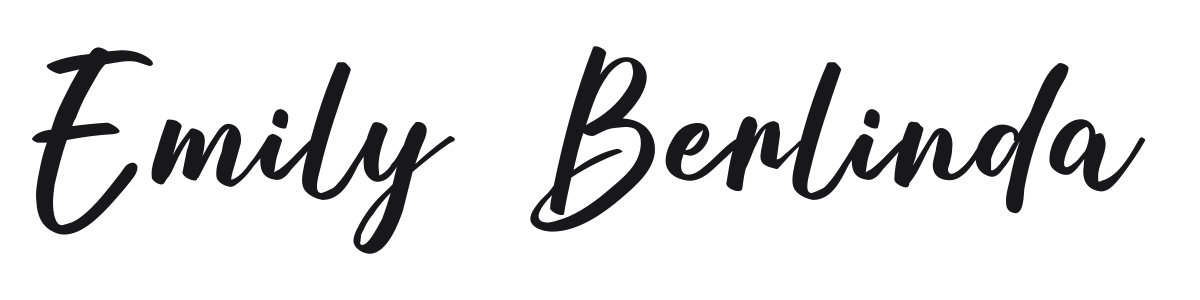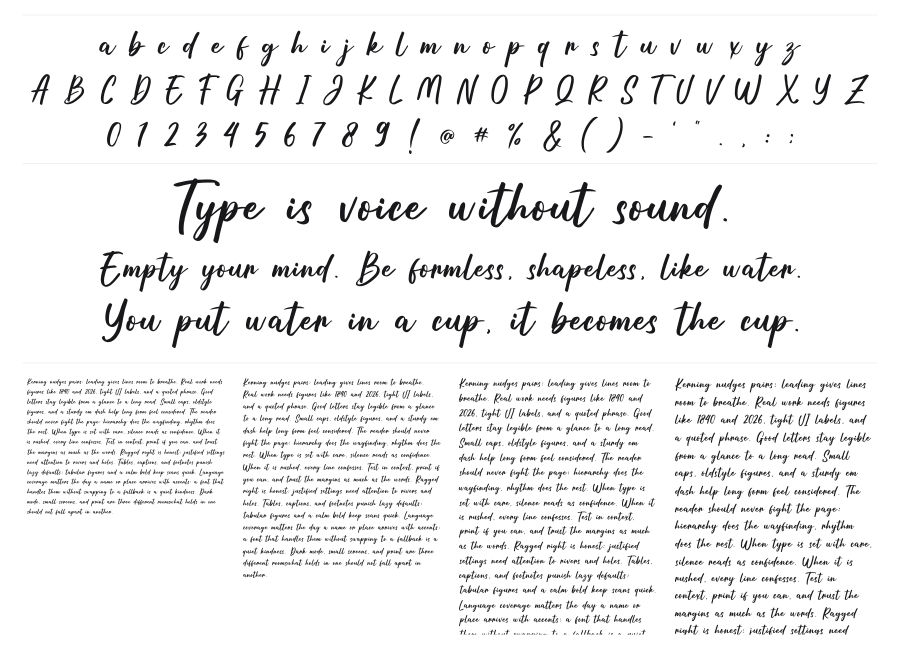
Emily Berlinda
Emily Berlinda is a bold casual script with fluid connections and lively stroke contrast between thick stems and delicate hairlines. The bouncing baseline and sweeping loops give it an energetic, handwritten personality that feels both natural and polished. It works well at display sizes for branding, packaging, and editorial headlines.